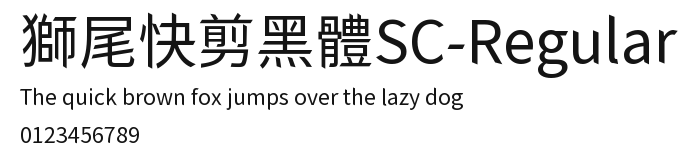
About 獅尾快剪黑體SC-Regular.ttf
獅尾快剪黑體SC-Regular.ttf is a modern, elegant sans-serif font designed for ultimate readability and visual harmony. Perfect for branding, headlines, web design, and print materials.